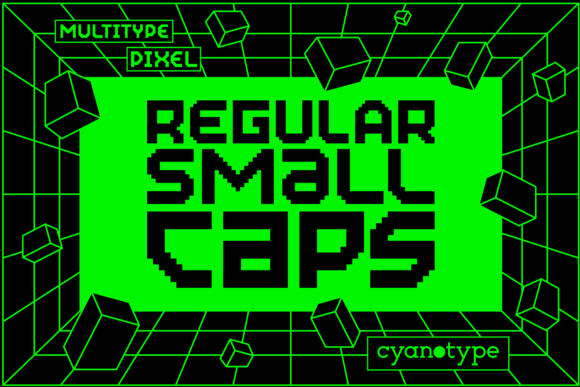
Unleash your creativity with MultiType Pixel – the font that ignites your imagination! This extraordinary display font is crafted with meticulous precision, featuring pixelated edges that dance before your eyes. Each letterform is a masterpiece, exuding a captivating charm that will leave you mesmerized.
Immerse yourself in a world of endless possibilities as you explore the captivating details of MultiType Pixel. Its unique pixelated design adds a touch of edginess and intrigue to your designs, making them stand out from the ordinary. Express your individuality and push the boundaries of visual aesthetics with this remarkable font.
MultiType Pixel is your perfect companion for creating striking logos, eye-catching posters, dynamic social media graphics, and stunning website designs. Its versatility knows no bounds, allowing you to effortlessly elevate your projects to new heights. Let your creativity soar as you craft designs that resonate with your audience and leave a lasting impression.
Dive into the enchanting world of MultiType Pixel today and discover a font that will transform your creative vision. Its pixelated allure will captivate your audience, leaving them utterly captivated by your designs. Unleash the power of MultiType Pixel and embark on a journey of visual artistry that knows no limits!